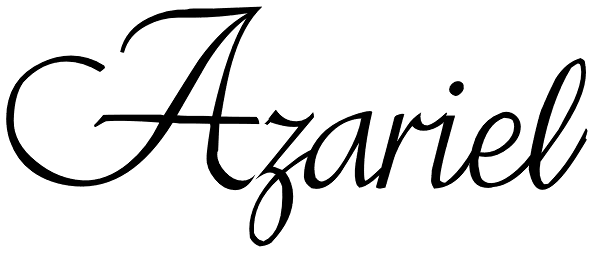
Azariel
Azariel is a decorative calligraphic script font designed to have linking characters in the lower case and elaborate swashed capital letters which overlap and nestle with adjoining characters. It's very elegant - excellent for invitations and other...